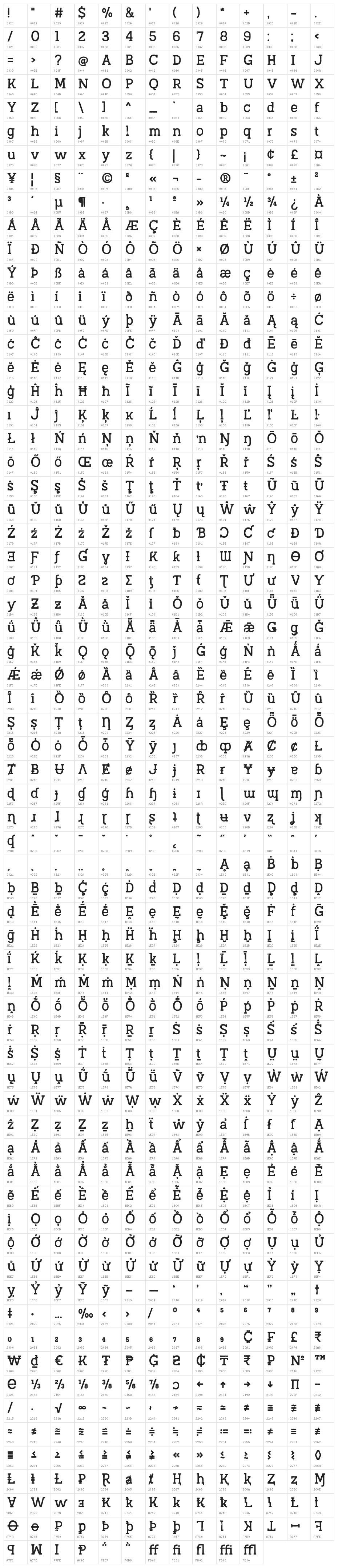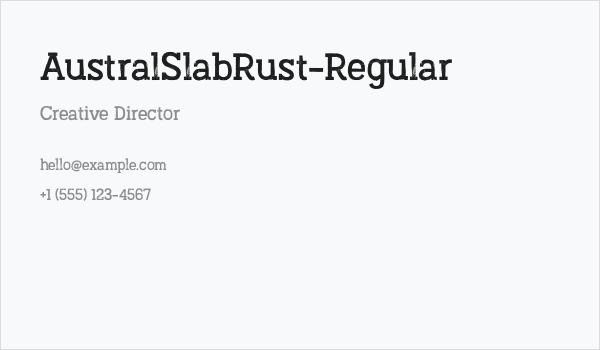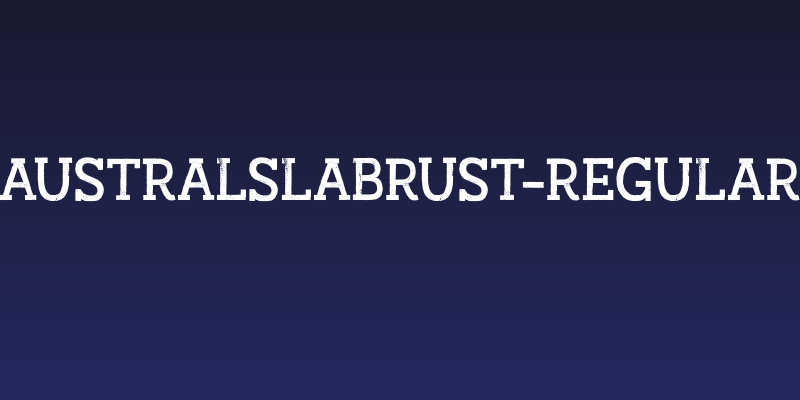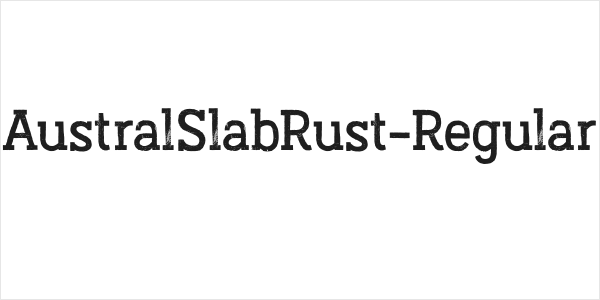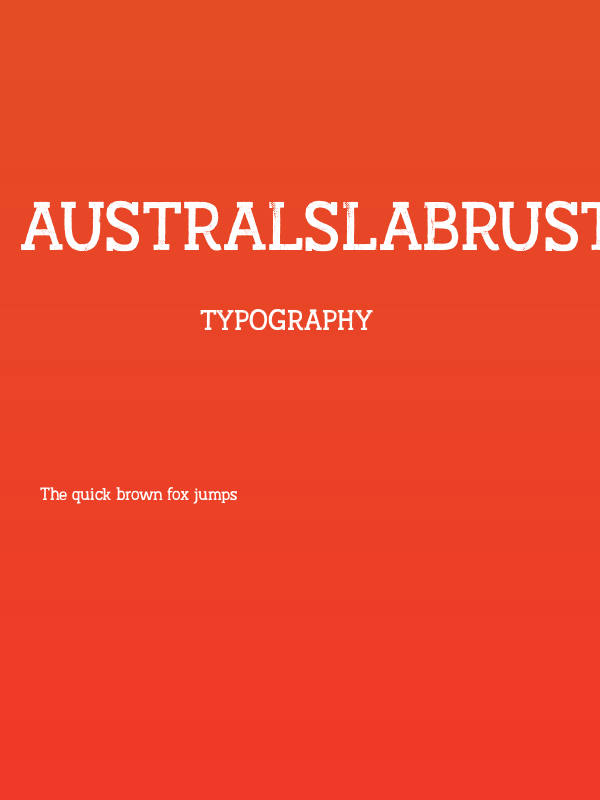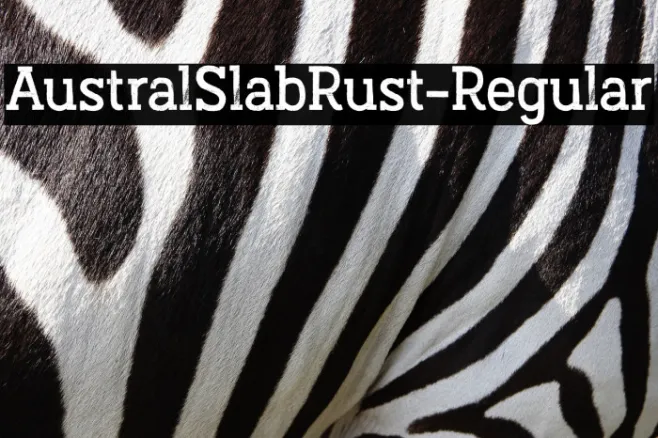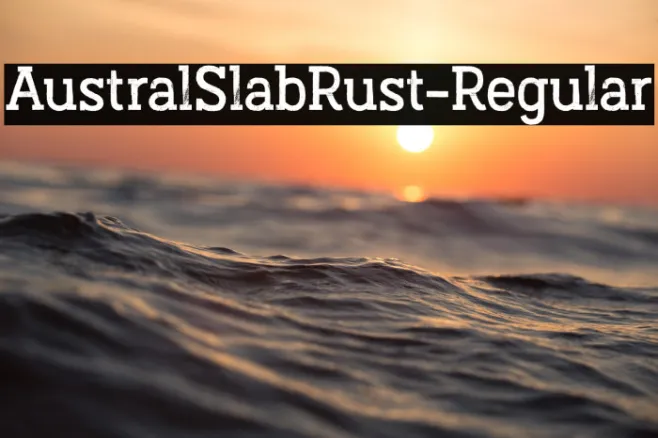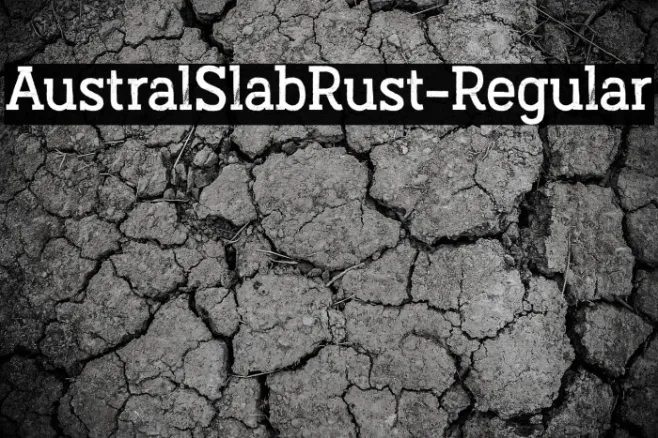
AustralSlabRust-Regular Font
AustralSlabRust-Regular Description
This font features a rugged, textured appearance with a slab serif style, giving it a rustic and vintage feel. The bold, blocky letters are complemented by subtle distressing, adding character and a handcrafted look. The uppercase and lowercase letters maintain a consistent weight, while the numerals and special characters follow the same design principles. The font's strong presence makes it suitable for impactful designs, where a touch of nostalgia or a handcrafted aesthetic is desired.